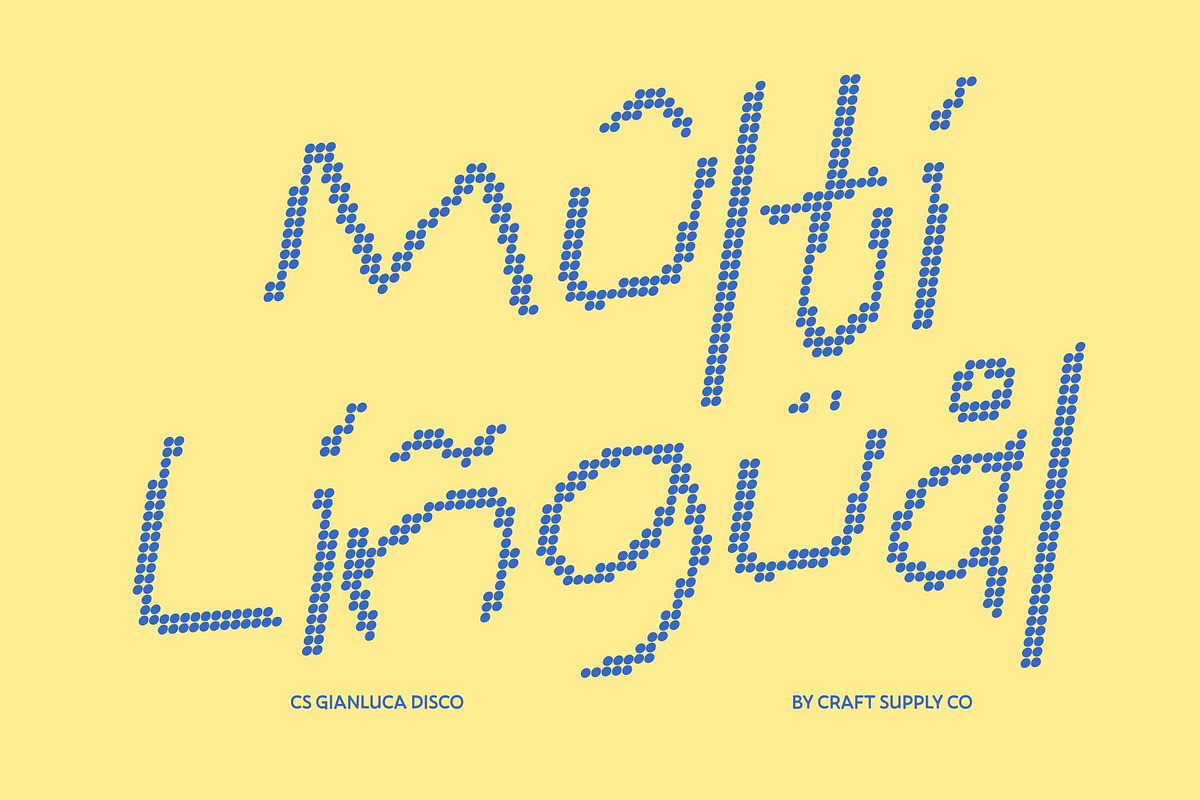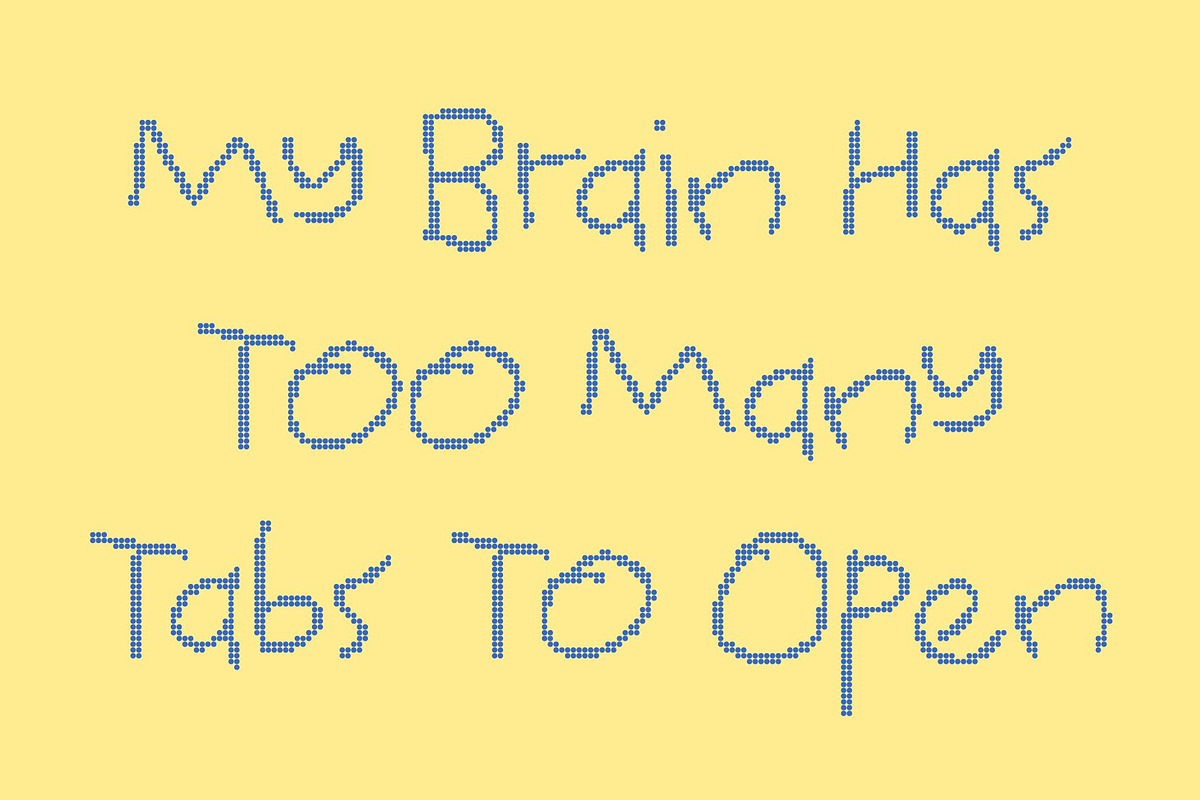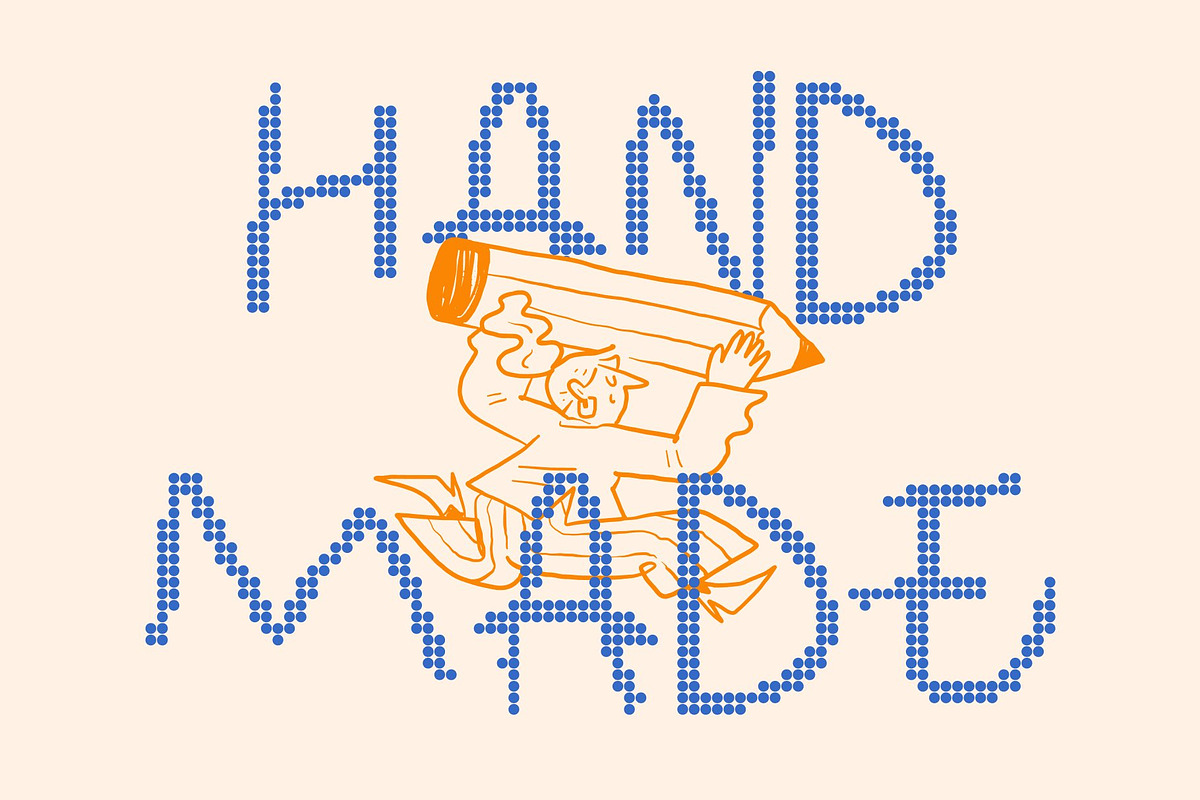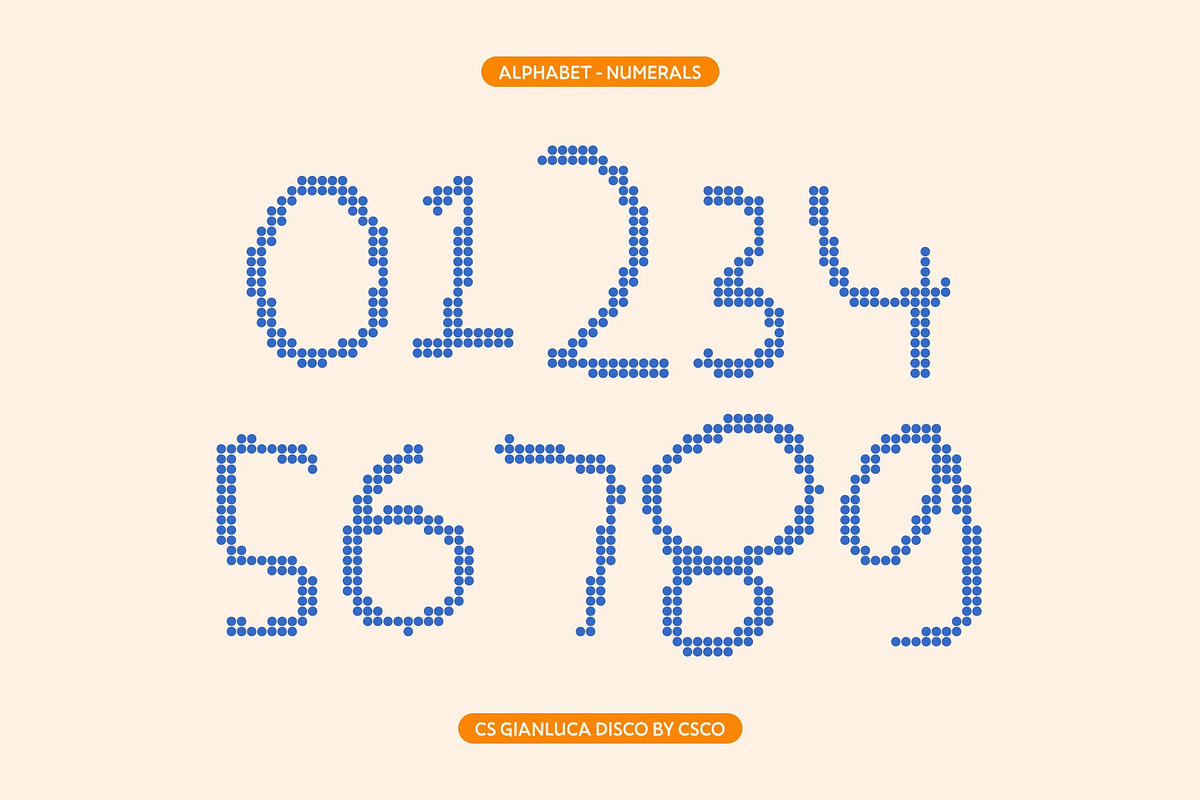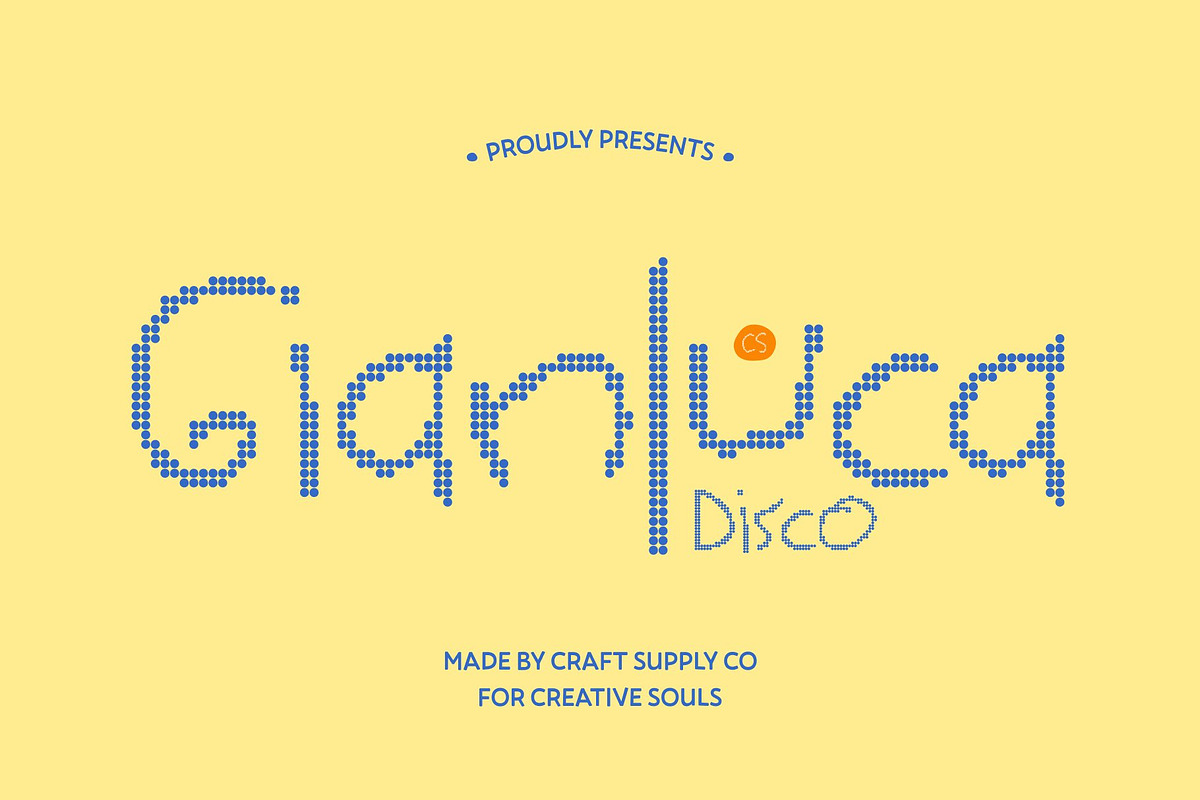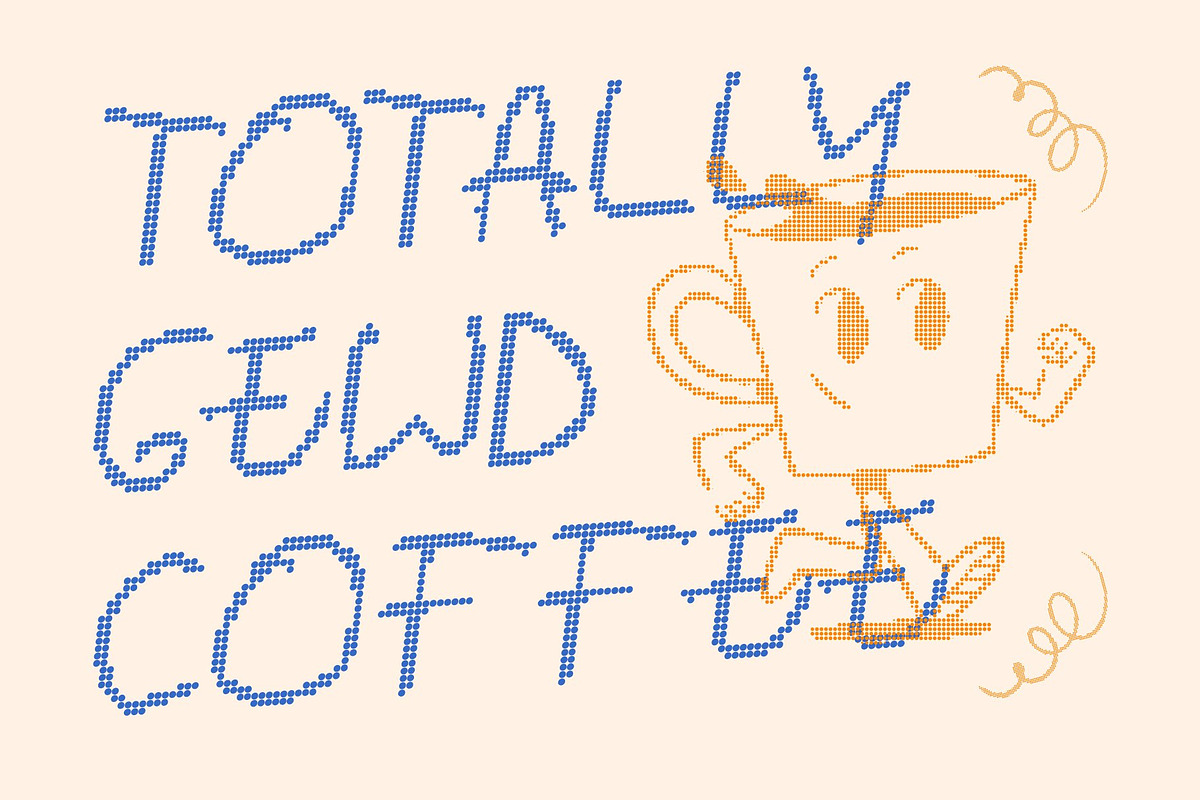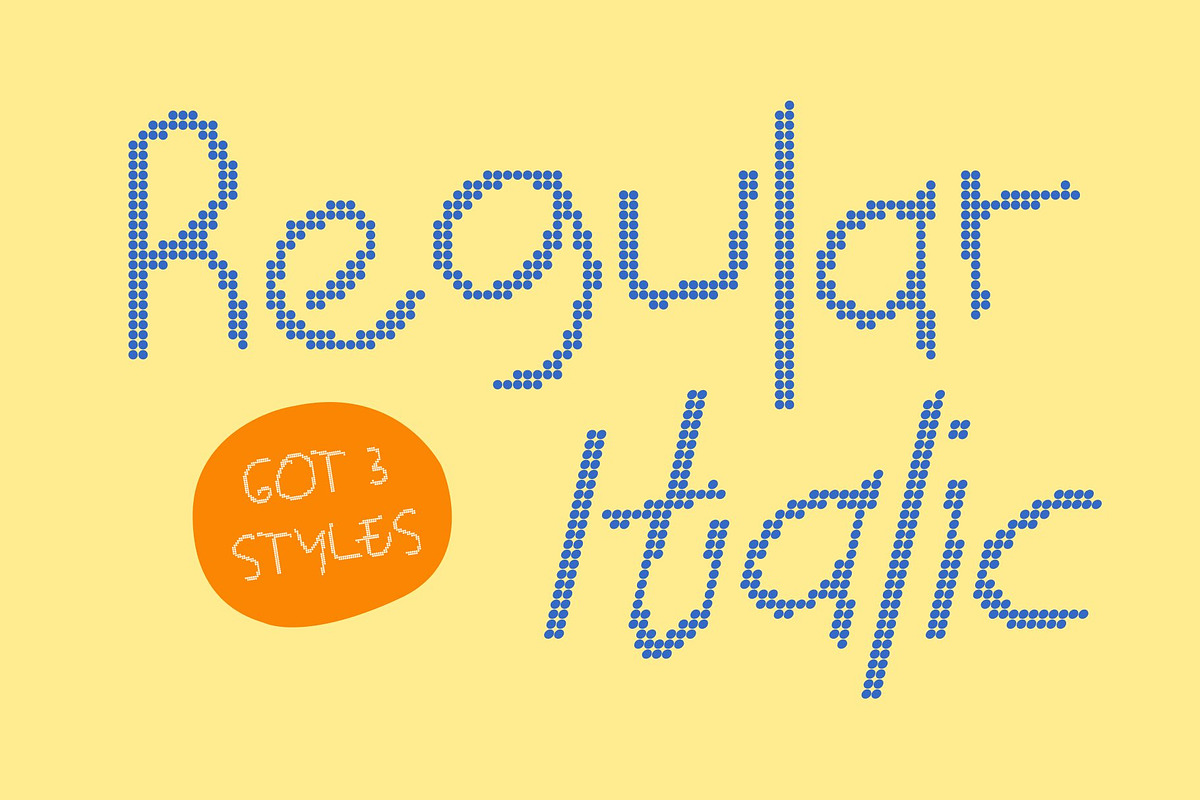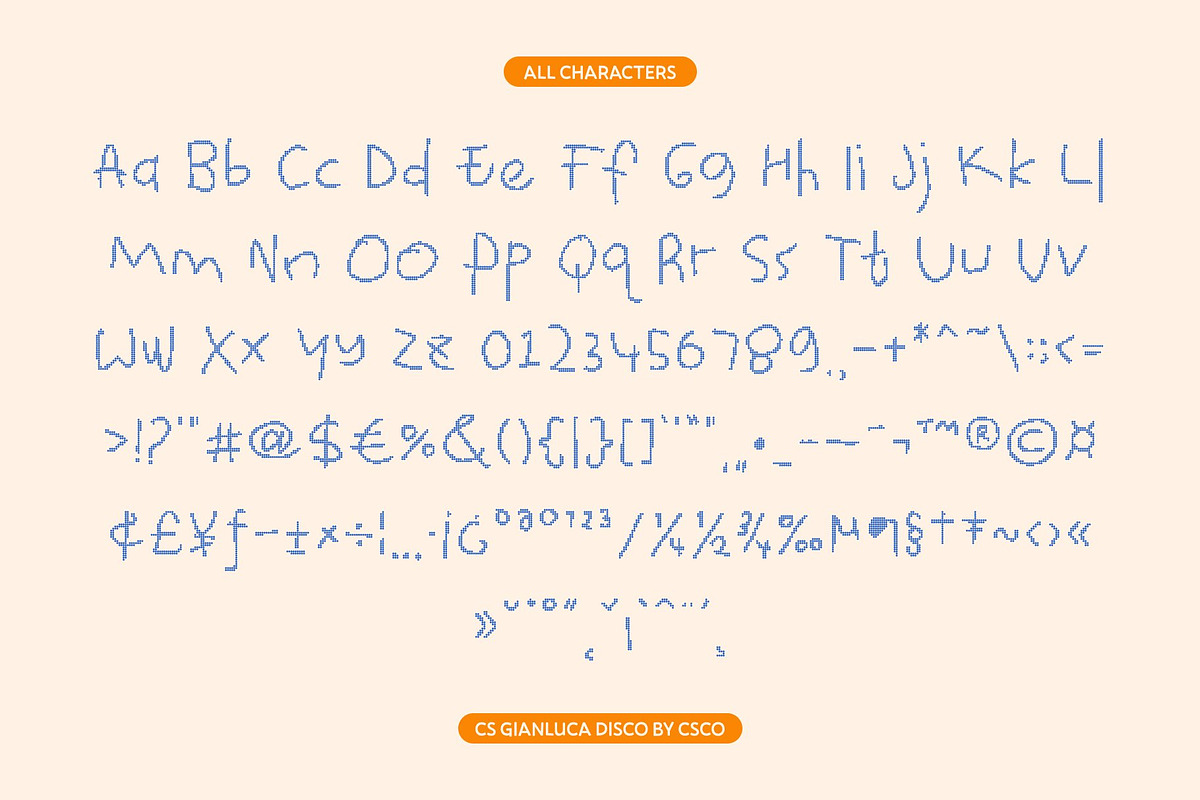
CS Gianluca Disco
CS Gianluca Disco – The Art of Messy Expression
Playful Messy Font with Disco Spirit This is a gritty yet stylish messy font infused with vibrant disco energy. Embracing imperfection with confidence, its irregular, spontaneous, and freely scribbled forms reflect the lively rhythm of the dance floor. Each letter moves with personality and unpredictability, creating a hand-drawn charm that feels alive, expressive, and full of party-time attitude.
Irregular Shapes with Rhythmic Visual Flow The uneven strokes and sketch-like letterforms create a dynamic visual rhythm inspired by movement, music, and motion. Its intentionally rough edges feel playful rather than chaotic, echoing the joyful freedom of disco culture. This energetic irregularity brings individuality and bold character, making every word feel like it’s dancing across the page.
Cheerful, Energetic, and Full of Party Vibes Radiating fun, confidence, and creative freedom, this font captures the excitement of colorful lights, upbeat music, and carefree expression. It’s perfect for youthful and expressive designs adding instant warmth, joy, and sparkle to playful posters, children’s projects, and quirky branding with a disco-inspired twist.
Perfect for Fun, Expressive, and Festive Designs From kids’ designs and handmade crafts to lifestyle graphics, fun packaging, and cheerful branding, this font delivers an approachable yet energetic feel. It’s not about perfection it’s about celebration. This font turns typography into a joyful party of creativity, personality, and bold disco-style expression.